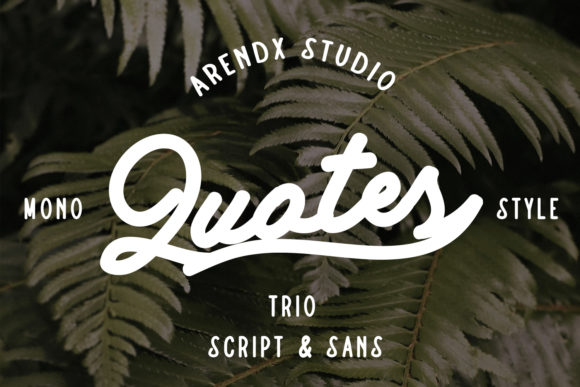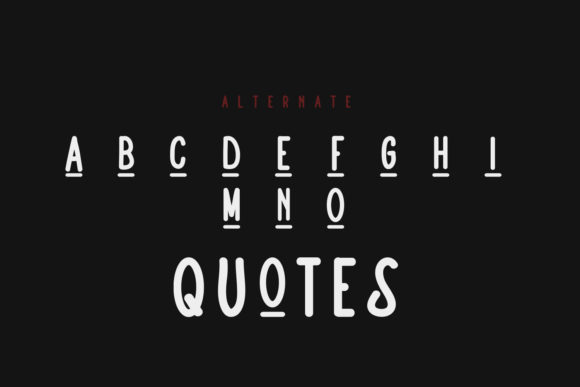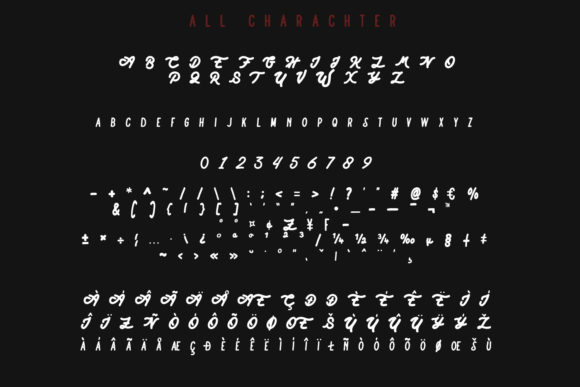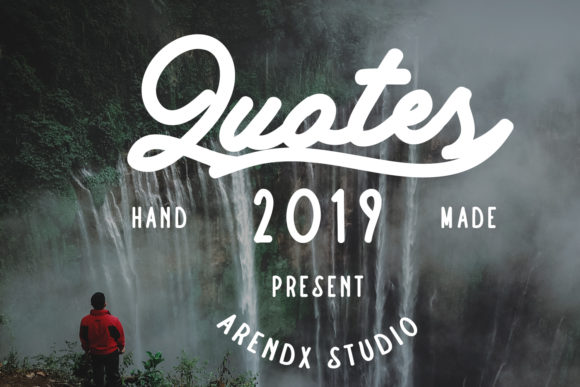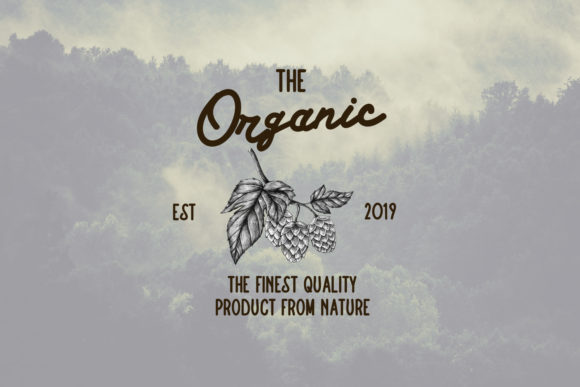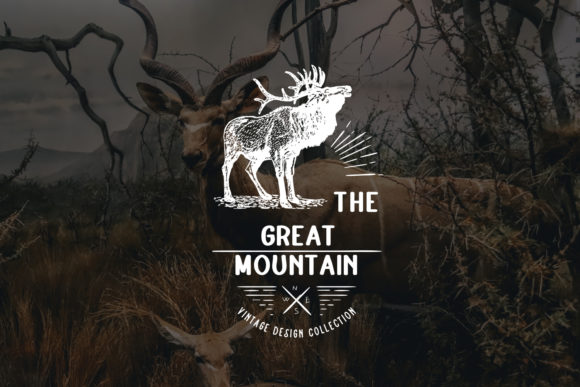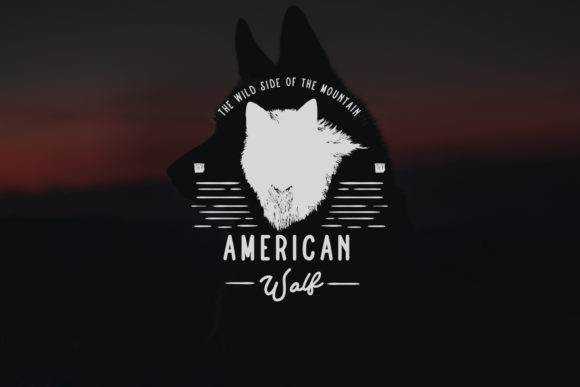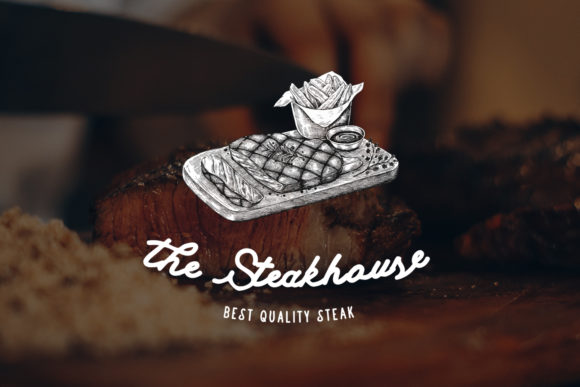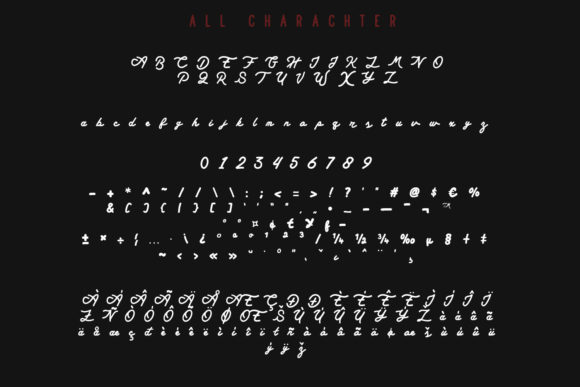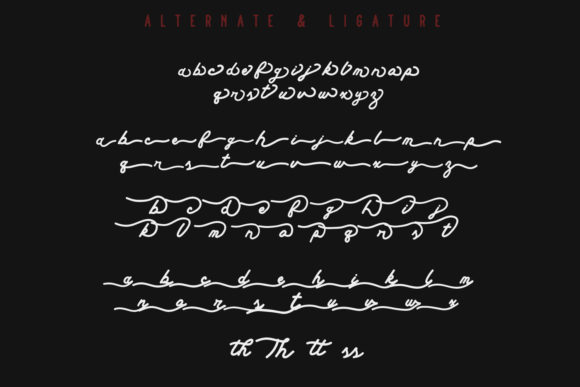
Quotes Trio Font
About Quotes Trio Font
Quotes is an exciting font trio that is perfect for a variety of projects. Get motivated by its unique look & feel!